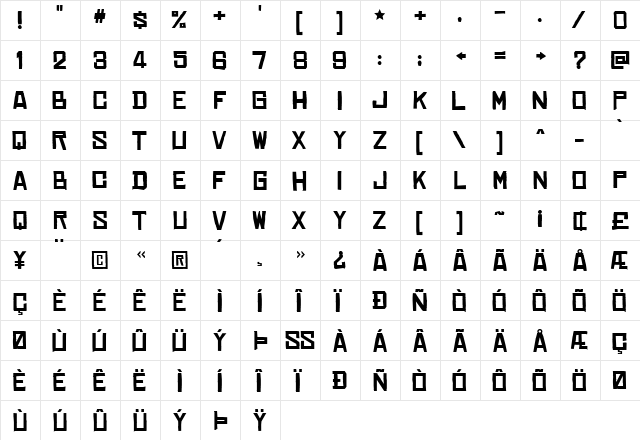
Chinese Rocks Xp Bold
Design Context for Chinese Rocks Xp Typeface
Chinese Rocks Xp offers clean, dependable letterforms without strong stylistic allegiance, making it a practical choice for designers who need flexibility. Its bold stroke weight gives it real presence on the page.